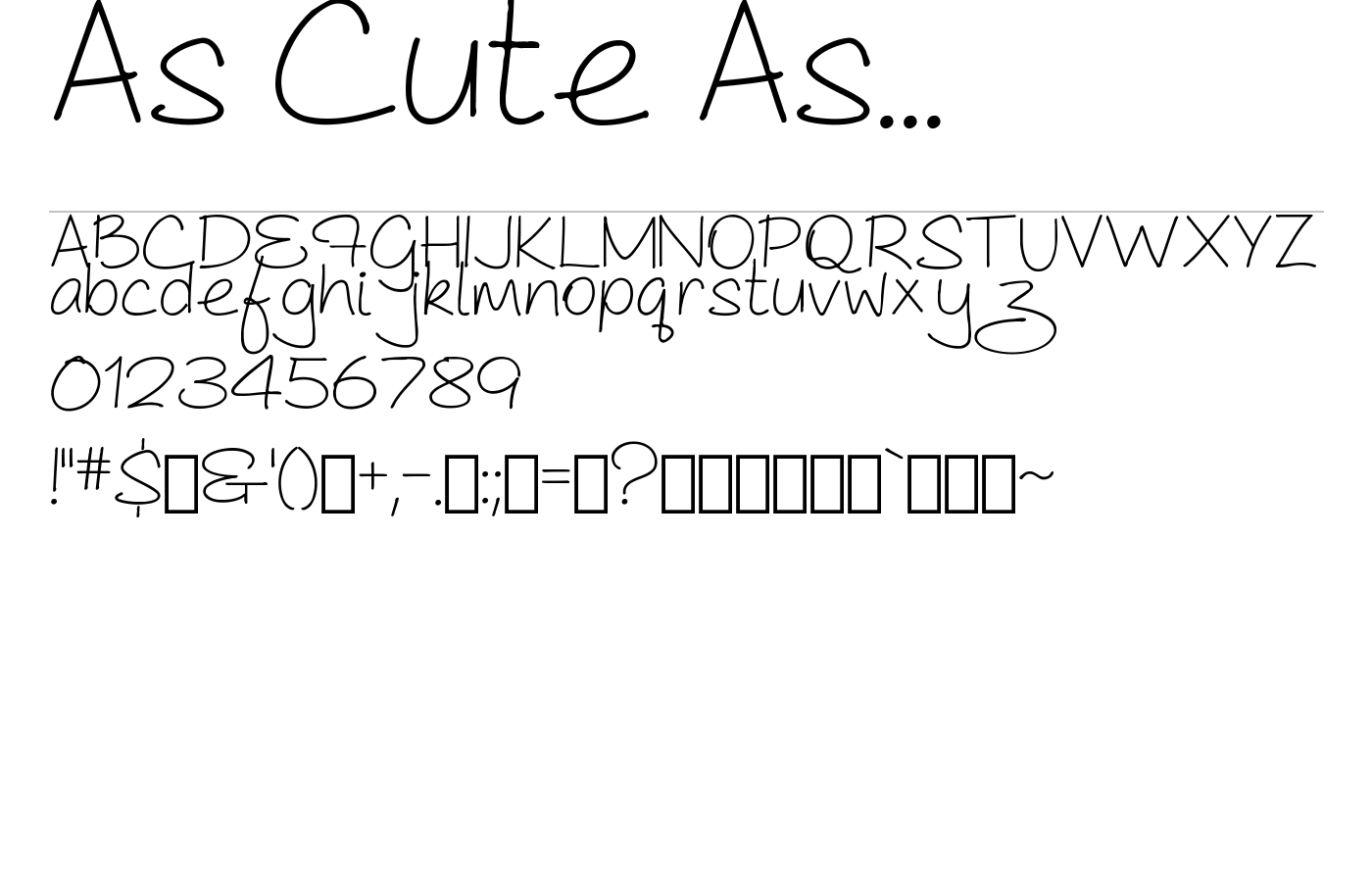
As Cute As... is a playful and delicate handwritten sans serif font with a light weight and airy feel. Its tall x-height and casual strokes create an informal, friendly look perfect for fun, youthful designs or personal projects. This font works well in invitations, greeting cards, and branding that seeks a warm, approachable personality.
As Cute As... Font